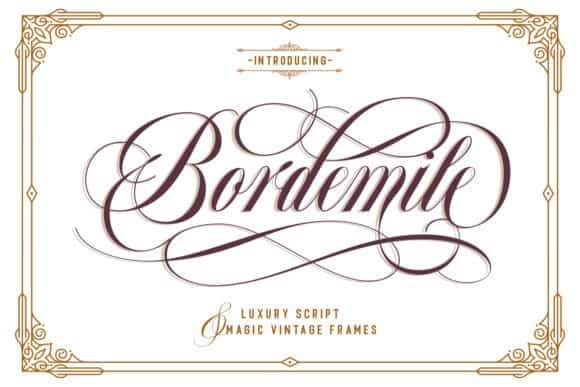
Bordemile Font
Bordemile Calligraphy Font a new fresh & modern script with a handmade calligraphy style, decorative characters and a dancing baseline! A luxury script with unique swashes! They works perfect for you who needs a typeface for headline, logotype, apparel, invitation, branding, packaging, advertising etc.